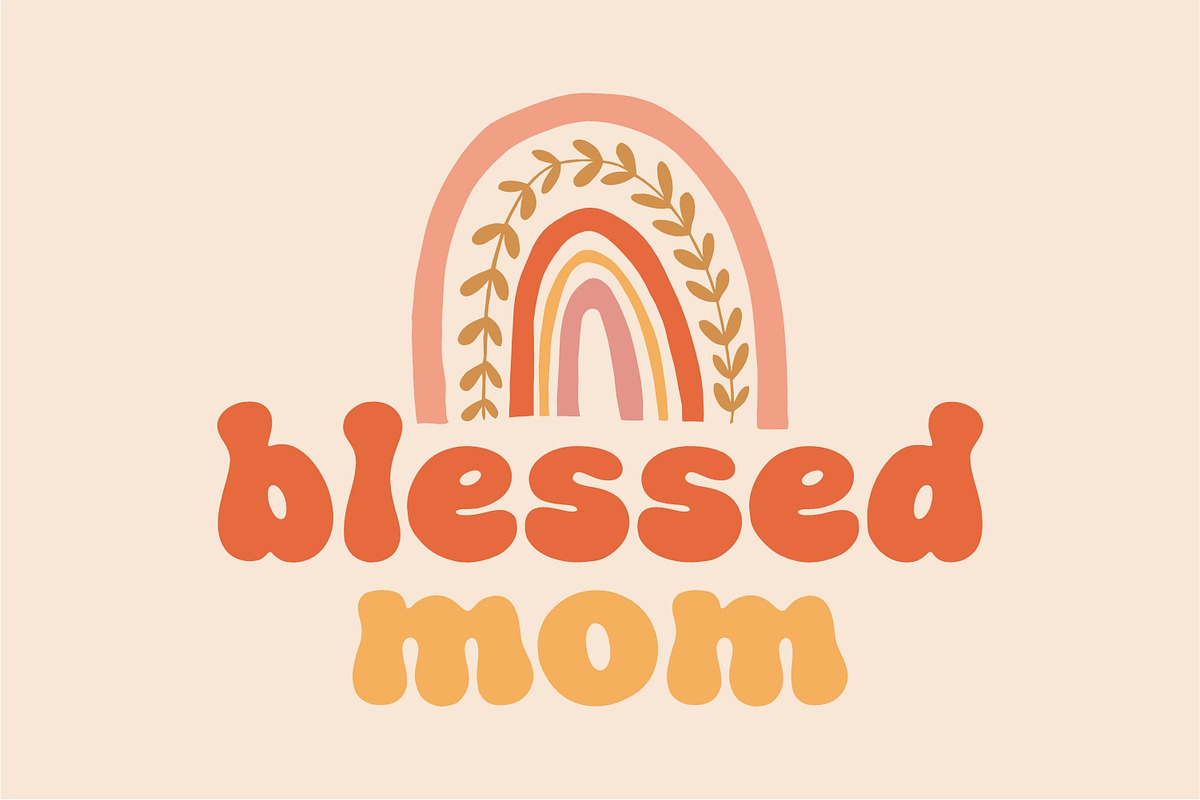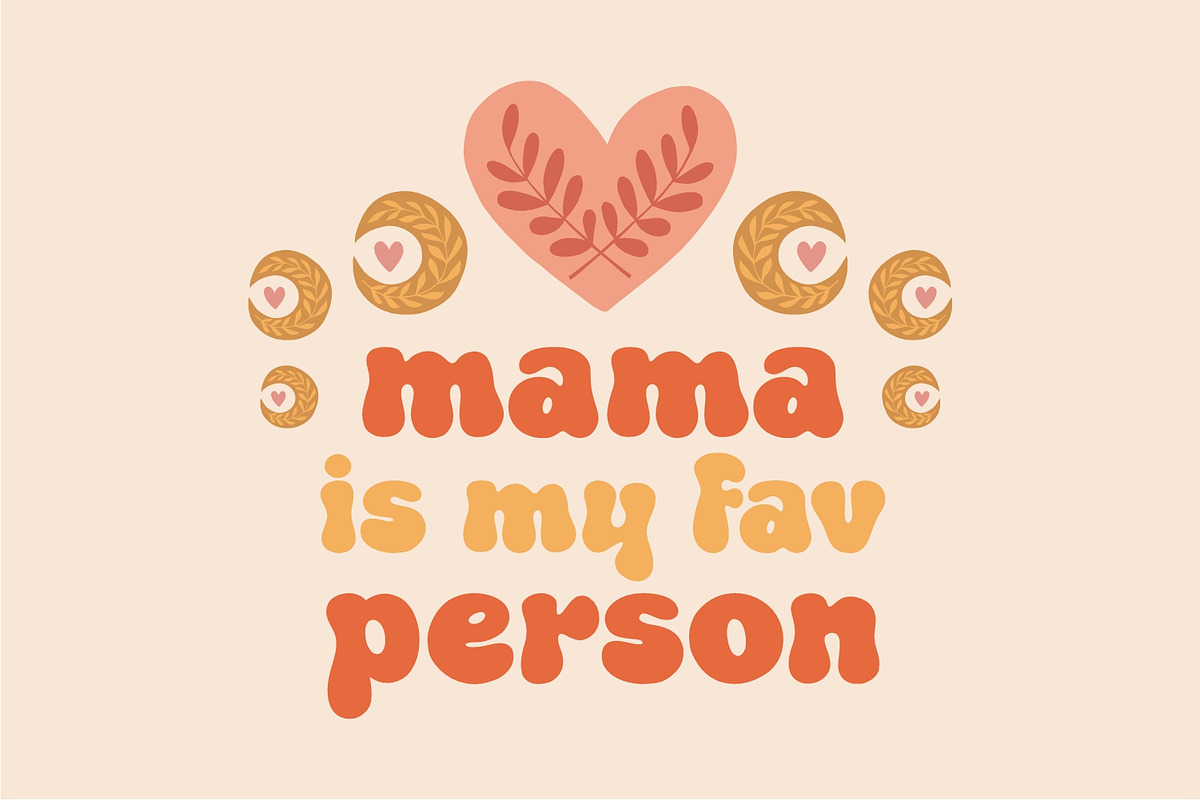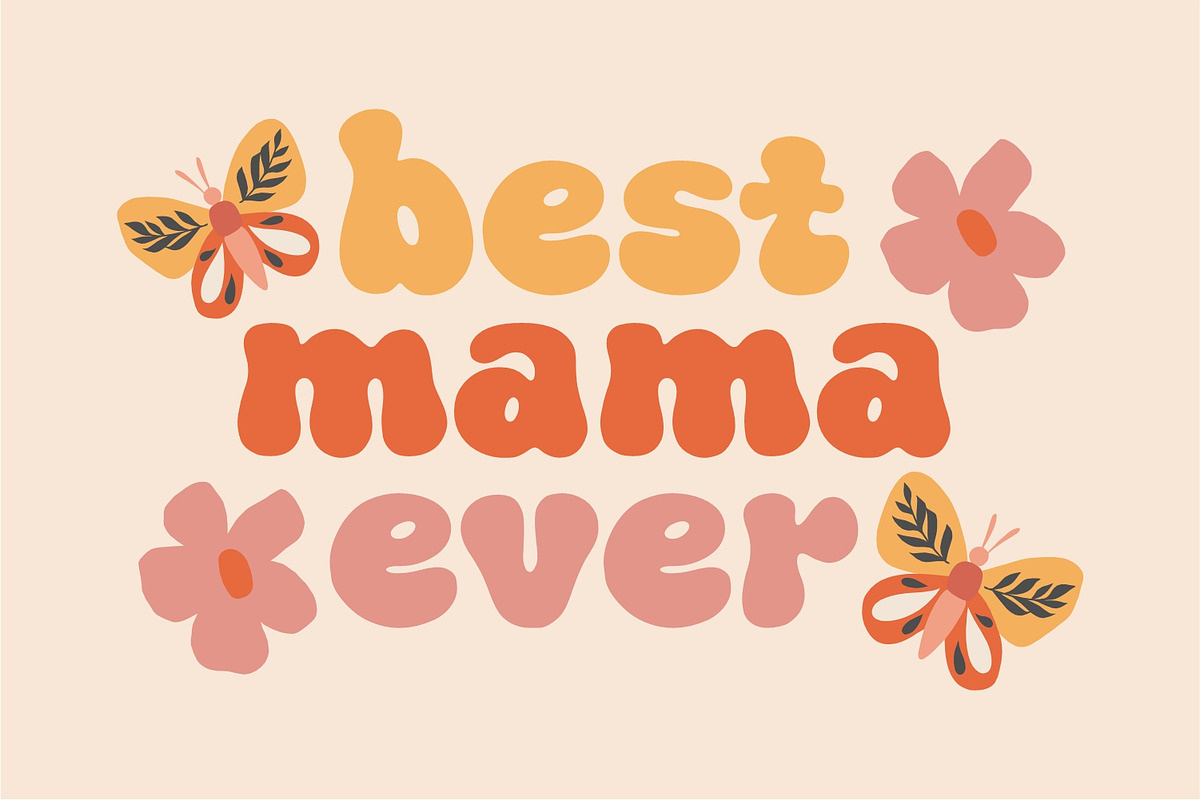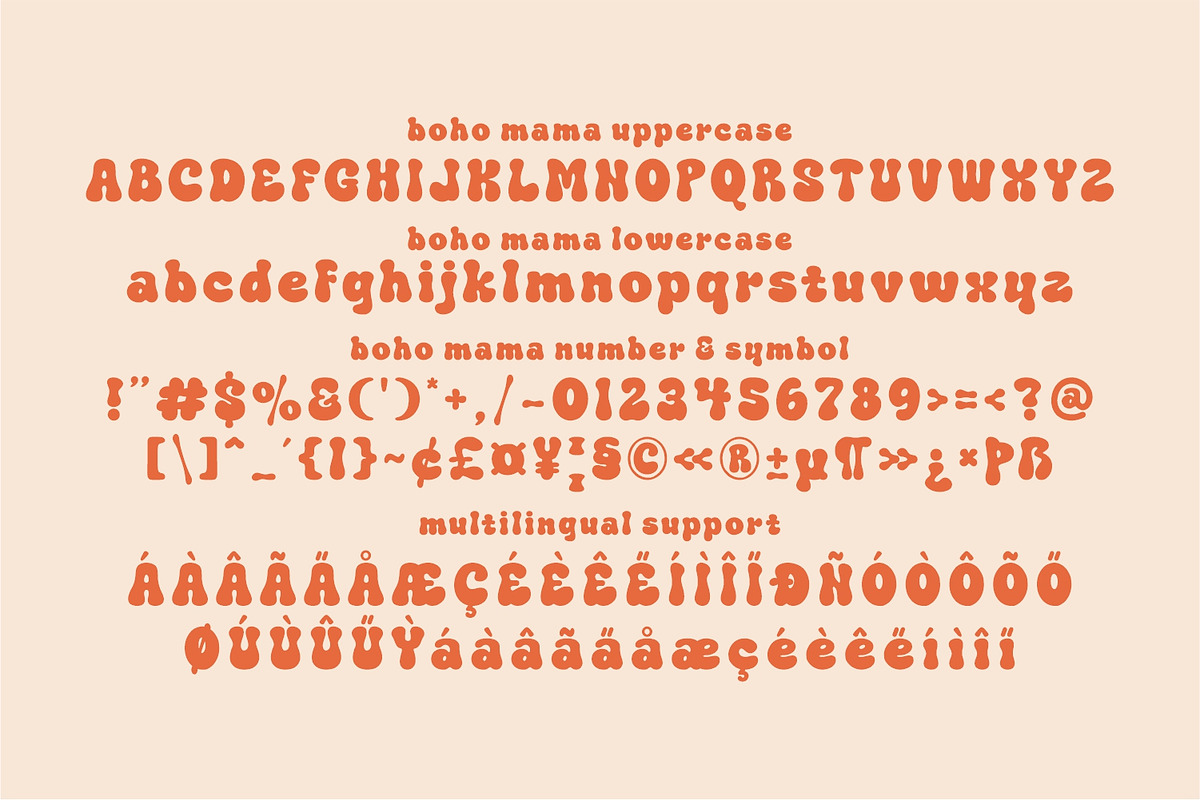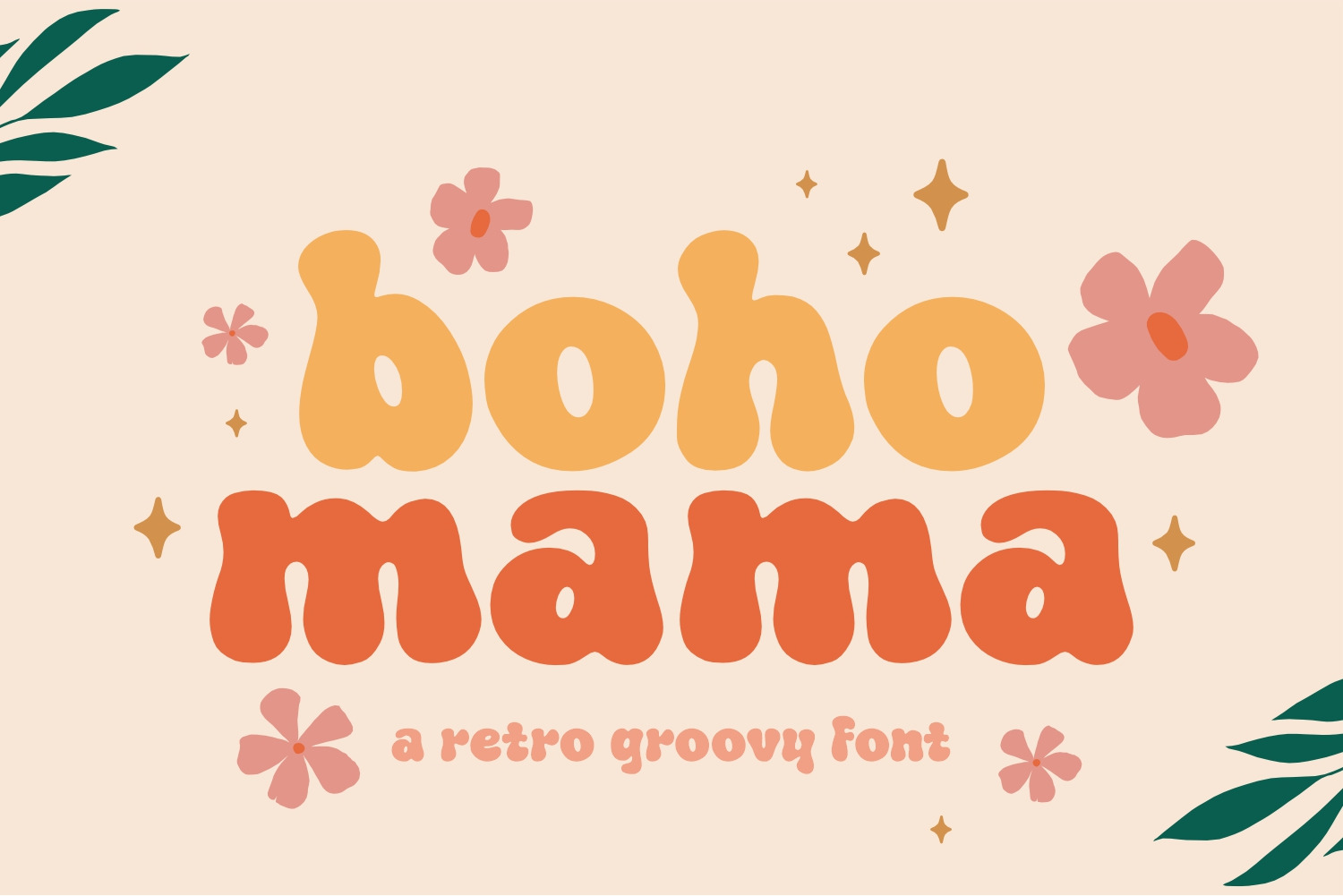
Boho Mama - Retro Groovy Font
Indulge in the vintage charm of Boho Mama, a standout retro display font, with its distinct character and authentic form. Perfect for a plethora of creative purposes, utilize this font to imbue your logo designs, branding elements, banners, headlines, and craft projects with a touch of nostalgia. The unmistakeable letter designs of Boho Mama are uniquely poised to turn invitations into a creative feast. Want your designs to make a bold statement? Look no further – Boho Mama has you covered. Its unique elegance is here to elevate your projects into the realm of the extraordinary.